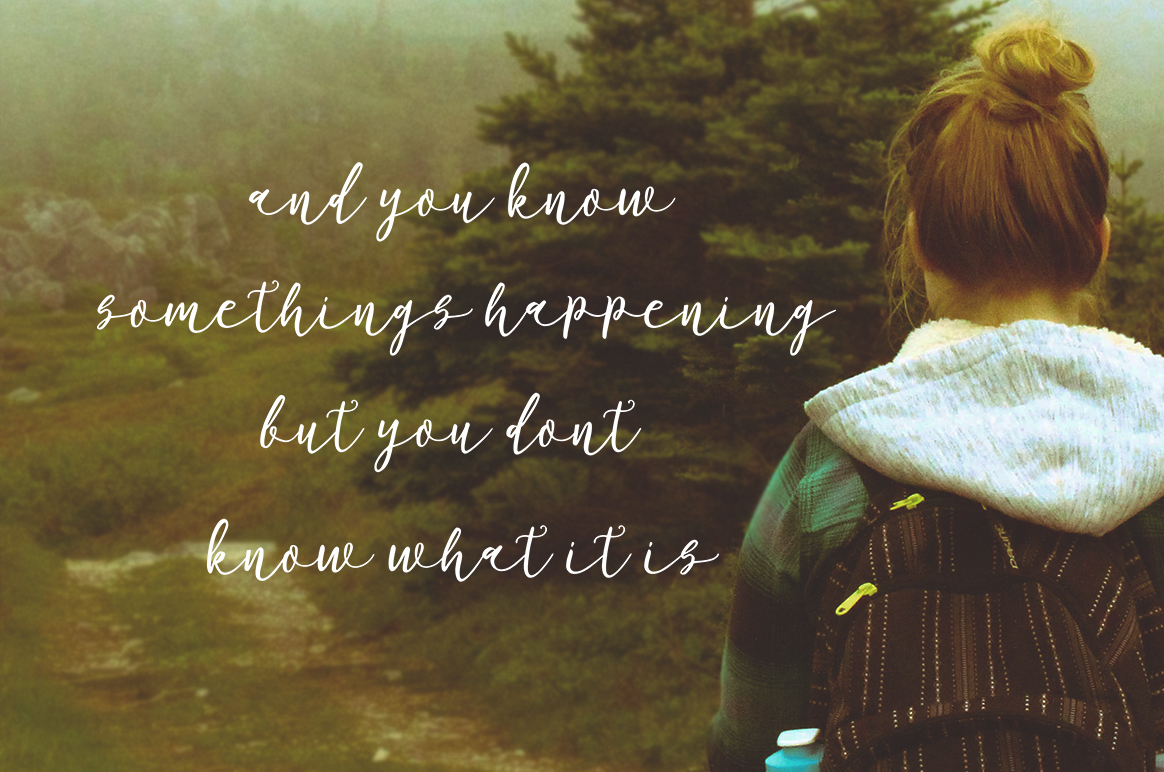
Barbeque Font
About Barbeque Font
Barbeque is an extremely pretty hand brushed font, created with a brush, ink, and some creativity. This is a bold script with an irregular baseline, and can be paired with any number of fonts for decorative and elegant designs for your projects.